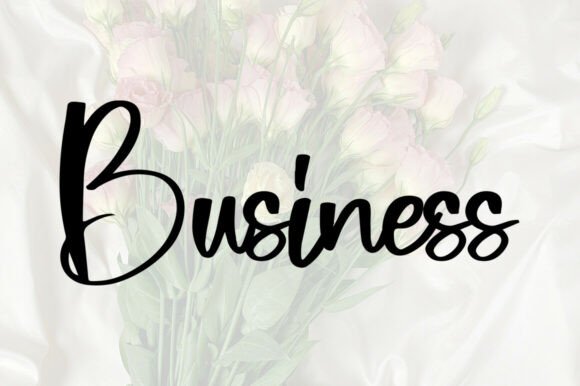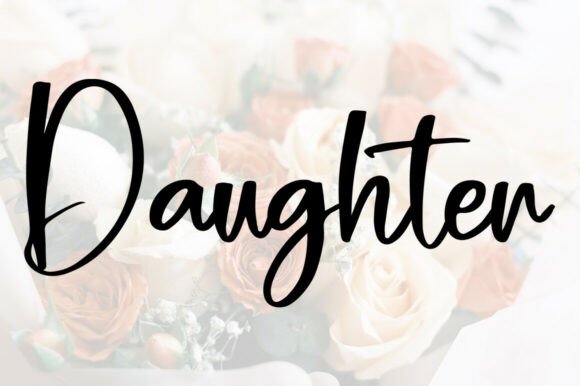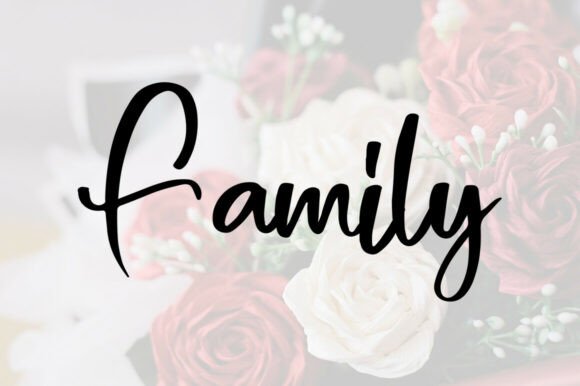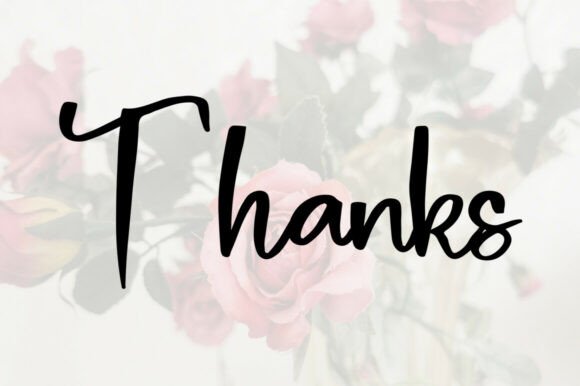
Discover the Charm of Carsten Font: Your New Go-To Handwritten Font
Are you tired of using the same old fonts for your designs and crafts? Look no further! Carsten Font is here to revolutionize your creative projects with its simple and friendly handwritten style. Whether you’re a designer, crafter, or DIY enthusiast, this versatile font is sure to become your favorite go-to for any occasion.
What Makes Carsten Font So Special?
Carsten Font is a beautifully crafted handwritten font that exudes warmth and approachability. Its simplicity and friendliness make it perfect for a wide range of applications, from digital designs and presentations to crafts and greeting cards. With Carsten Font, you can add a personal touch to your projects and make them stand out from the crowd.
One of the standout features of Carsten Font is its PUA (Private Use Area) encoding. This means that you can easily access all the glyphs and swashes, giving you even more creative freedom. With PUA encoding, you can unlock a world of possibilities and take your designs to the next level.
Carsten Font is incredibly versatile, making it perfect for a wide range of projects. Here are just a few ideas to get you started:
- Crafts: Use Carsten Font to add a personal touch to your handmade crafts, such as knitting patterns, sewing projects, or scrapbooking.
- Digital Design: Add a friendly and approachable feel to your digital designs, including social media graphics, blog posts, and website headers.
- Presentations: Make your presentations more engaging and memorable with Carsten Font’s clear and easy-to-read style.
- Greeting Cards: Create beautiful and heartfelt greeting cards for any occasion, from birthdays and holidays to weddings and graduations.
Why Choose Carsten Font?
With so many fonts to choose from, why should you choose Carsten Font? Here are just a few reasons:
- Unique and Versatile: Carsten Font is a one-of-a-kind font that can be used for a wide range of projects.
- Easy to Read: The clear and simple style of Carsten Font makes it easy to read, even at small sizes.
- PUA Encoding: With PUA encoding, you can access all the glyphs and swashes, giving you even more creative freedom.
- Friendly and Approachable: Carsten Font has a friendly and approachable feel that’s perfect for creating a connection with your audience.
Tips for Using Carsten Font
Here are a few tips for getting the most out of Carsten Font:
- Experiment with Sizes: Try using Carsten Font in different sizes to create visual interest and hierarchy.
- Mix and Match: Combine Carsten Font with other fonts to create a unique and eye-catching look.
- Play with Colors: Use Carsten Font with different colors to add personality and style to your designs.
Carsten Font is a simple and friendly handwritten font that’s perfect for designers, crafters, and DIY enthusiasts. With its PUA encoding and versatile style, it’s sure to become your go-to font for any occasion. Whether you’re creating digital designs, crafts, presentations, or greeting cards, Carsten Font is the perfect choice. So why wait? Discover the charm of Carsten Font today and take your creative projects to the next level!